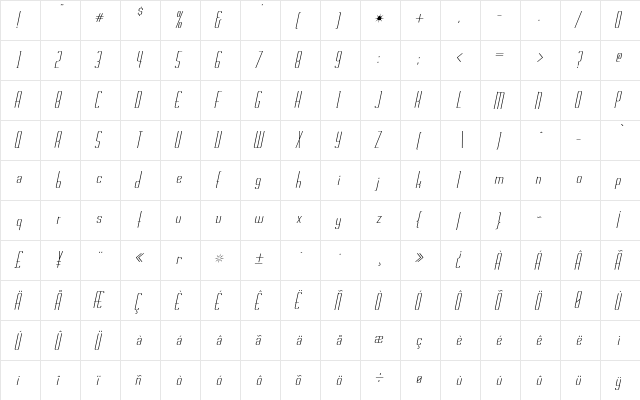
Chasline Oblique
Design Context for Chasline Typeface
Chasline offers clean, dependable letterforms without strong stylistic allegiance, making it a practical choice for designers who need flexibility. The slanted form adds forward momentum and visual energy.
Pro Tip: Try Chasline for annotation and caption copy alongside an upright companion — the contrast in angle creates a dynamic but ordered typographic system.